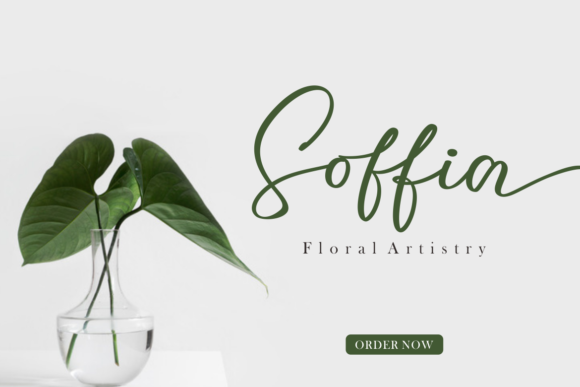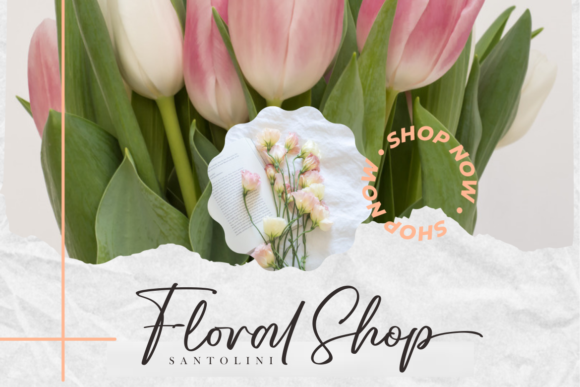
Callista Font
db-ku.com - Script & Handwritten -- Callista is a stylish and modern handwritten font, suitable for a wide spectrum of applications. From greeting cards to headlines, this font will guarantee a romantic touch to each of your creations! Callista is PUA encoded which means you can access all of the glyphs and swashes with ease.